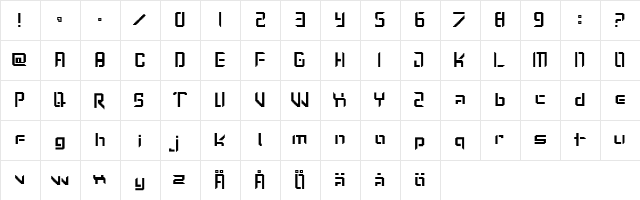
Design Context for Lost Passenger Typeface
Lost Passenger is a composed and adaptable typeface that performs quietly and consistently across a wide range of design contexts.